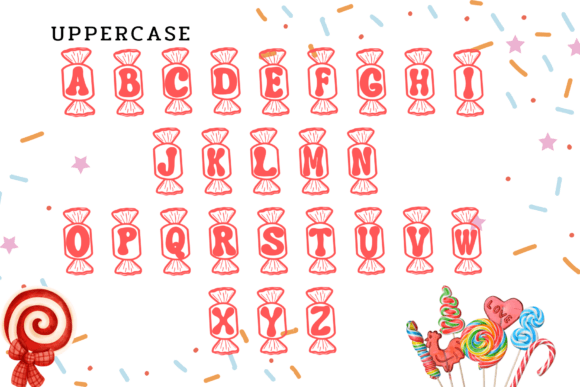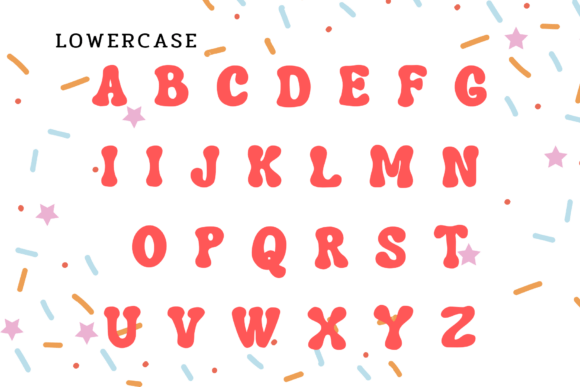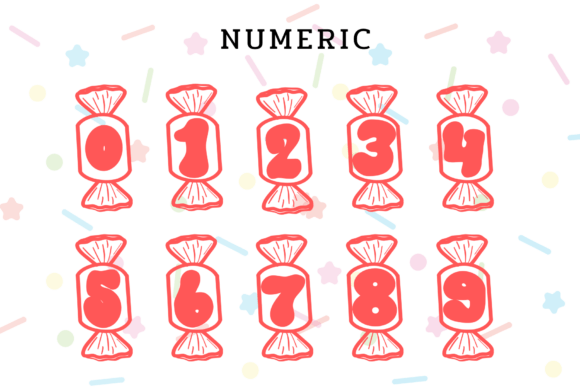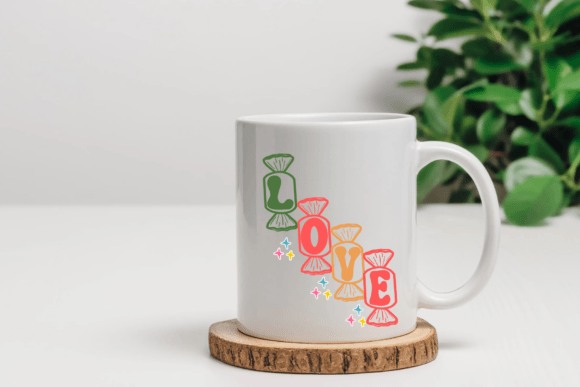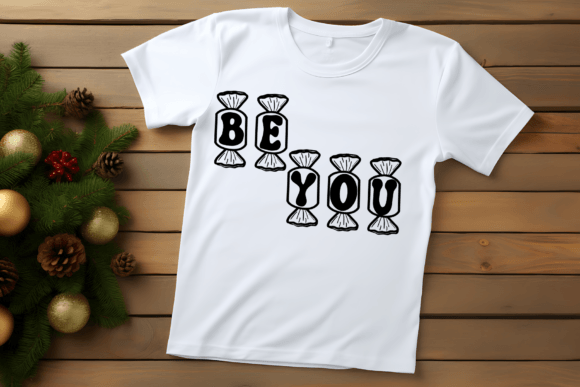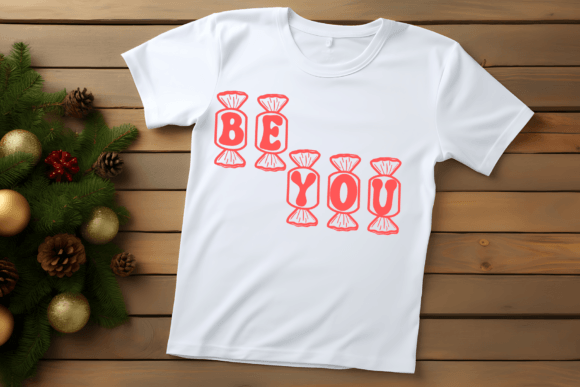
Candy New Year Font: A Sweet Addition to Your Design Collection
Are you looking for a fun and festive font to add some sweetness to your designs? Look no further than the Candy New Year Font! This decorative font is perfect for crafters, designers, and anyone looking to add a touch of whimsy to their projects.
What is Candy New Year Font?
Candy New Year Font is a decorative font designed to resemble colorful, sugary treats. Its playful and cheerful design makes it perfect for a variety of projects, from personal notes and greeting cards to social media posts and commercial designs.
Uses for Candy New Year Font
This versatile font can be used for a wide range of projects, including:
- Taking notes: Add a pop of color and fun to your notes and journals with Candy New Year Font.
- Writing a diary: Make your diary entries more exciting and engaging with this playful font.
- Creating greeting cards: Use Candy New Year Font to design eye-catching and festive greeting cards for special occasions.
- Designing banners: Add a touch of sweetness to your banners and posters with this colorful font.
- Content creation: Use Candy New Year Font to create engaging and shareable content for social media and blogs.
- Mugs and water bottles: Add a fun and playful touch to your drinkware with Candy New Year Font.
- Cards and invitations: Create custom cards and invitations for parties, birthdays, and other special occasions.
- Shirts and apparel: Use Candy New Year Font to design fun and quirky apparel, such as t-shirts and tote bags.
- Stationery: Add a touch of whimsy to your stationery and office supplies with this decorative font.
- Social media posts: Use Candy New Year Font to create eye-catching and engaging social media posts.
Why Choose Candy New Year Font?
There are many reasons why Candy New Year Font is a great addition to your design collection:
- Unique and playful design: Candy New Year Font is a one-of-a-kind font that adds a touch of fun and whimsy to any project.
- Versatile: This font can be used for a wide range of projects, from personal to commercial.
- High-quality: This font is designed with high-quality and clarity in mind, ensuring that it looks great in any project.
Tips for Using Candy New Year Font
Here are some tips for getting the most out of Candy New Year Font:
- Experiment with colors: Candy New Year Font looks great in a variety of colors, so don’t be afraid to experiment and find the perfect hue for your project.
- Mix and match: Combine Candy New Year Font with other fonts and design elements to create a unique and eye-catching look.
- Keep it simple: Don’t overcomplicate your design – sometimes, less is more. Use Candy New Year Font to add a touch of whimsy to a simple design.
Candy New Year Font is a fun and versatile font that is perfect for designers, crafters, and anyone looking to add a touch of sweetness to their projects. With its unique and playful design, this font is sure to bring a smile to anyone’s face. Whether you’re creating personal notes, greeting cards, or commercial designs, Candy New Year Font is a great addition to your design collection.